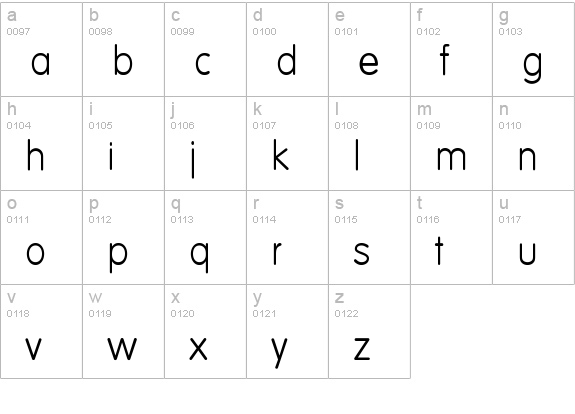
Volkswagen-Light Font Details
Volkswagen-Light is a refined, elegant variant in the Volkswagen typeface family \xE2\x80\x94 well suited to elegant body text, refined sub-headings, and luxury branding.
Volkswagen-Light font is a sleek and modern typeface that exudes elegance and sophistication. Its clean lines and subtle curves make it perfect for a wide range of design projects, from branding to editorial design. This font offers a unique combination of style and versatility, making it suitable for both professional and personal use. Whether you're creating a logo for a high-end fashion brand or designing a wedding invitation, Volkswagen-Light font will add a touch of class to your work. One of the best things about Volkswagen-Light font is that it is freely available to download at FontsMarket.com. This means that you can access this stunning font without having to spend a dime. It's a fantastic opportunity to enhance your design library with a high-quality typeface that won't break the bank. With its timeless appeal and effortless elegance, Volkswagen-Light font is sure to elevate any design project. So why wait? Head over to FontsMarket.com and download this free font today to add a touch of sophistication to your next design endeavor.